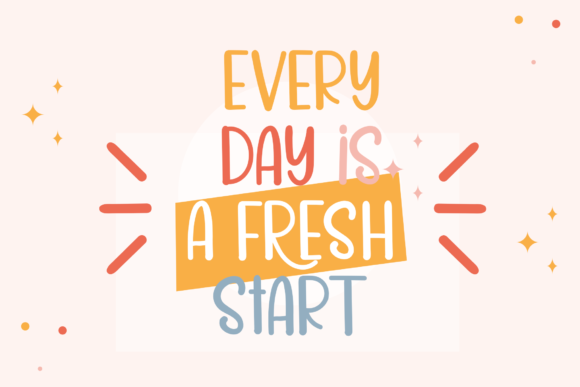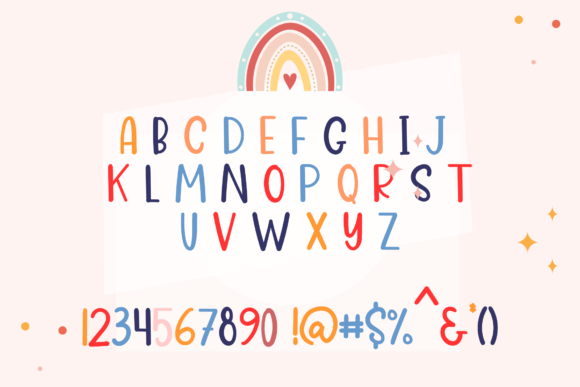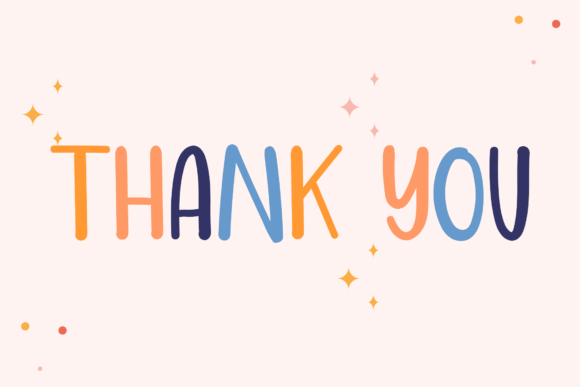
Introducing Dear Friend Font: The Perfect Playful Companion for Your Designs
Are you on the hunt for a font that’s as playful as it is cute? Look no further than Dear Friend Font! This delightful handwritten font is sure to capture the hearts of designers and crafters alike, especially when working on children-themed projects. With its whimsical charm and versatility, Dear Friend Font is the perfect addition to your typography collection.
The Characteristics of Dear Friend Font
Dear Friend Font boasts a range of characteristics that make it an excellent choice for a variety of design applications. Here are a few key features:
- Playful and Cute: The font’s handwritten style gives it a friendly and approachable feel, perfect for designs aimed at children or those who are young at heart.
- Handwritten Style: The unique, hand-crafted look of Dear Friend Font adds a personal touch to any design, making it stand out from more traditional fonts.
- Children-Themed Designs: The font’s playful nature makes it an ideal choice for projects such as children’s books, educational materials, party invitations, and craft projects.
- Versatility: While Dear Friend Font excels in children-themed designs, its versatility means it can also be used in a range of other applications, from branding to digital media.
Using Dear Friend Font in Your Designs
So, how can you make the most of Dear Friend Font in your designs? Here are a few ideas to get you started:
- Children’s Books and Educational Materials: Add a playful touch to storybooks, textbooks, and workbooks with Dear Friend Font. Its readability and charm make it perfect for content aimed at young learners.
- Party Invitations and Decor: Create eye-catching party invitations, banners, and decorations with Dear Friend Font. Its fun and festive vibe is sure to set the tone for any celebration.
- Craft Projects: Whether you’re designing printable art, crafting templates, or DIY project instructions, Dear Friend Font can add a whimsical touch that makes your projects more engaging.
- Branding and Digital Media: For brands targeting a younger audience or those who want to convey a friendly, approachable image, Dear Friend Font can be a great choice for logos, social media graphics, and website headers.
Tips for Pairing Dear Friend Font with Bright Colors
One of the best ways to enhance the playful and cute nature of Dear Friend Font is by pairing it with bright colors. Here are some tips for creating stunning color combinations:
- Contrast is Key: Choose colors that provide a nice contrast to the font and the background. Bright colors like pink, blue, yellow, and green work particularly well with the playful vibe of Dear Friend Font.
- Consider the Mood: Think about the mood or atmosphere you want to create with your design. For example, pastel colors can give your design a softer, more calming feel, while bold primary colors can make it more energetic and vibrant.
- Don’t Overdo It: While bright colors can enhance your design, too many can be overwhelming. Balance Dear Friend Font with a few select colors to keep your design clean and visually appealing.
Dear Friend Font is a delightful addition to any designer’s toolkit, offering a playful and cute handwritten style that’s perfect for children-themed designs and beyond. When paired with bright colors, this versatile font can bring a touch of whimsy and fun to a wide range of projects. Whether you’re creating children’s books, party invitations, craft projects, or digital media, Dear Friend Font is sure to make your designs more engaging and visually appealing. So why not give Dear Friend Font a try and see how it can bring your designs to life?